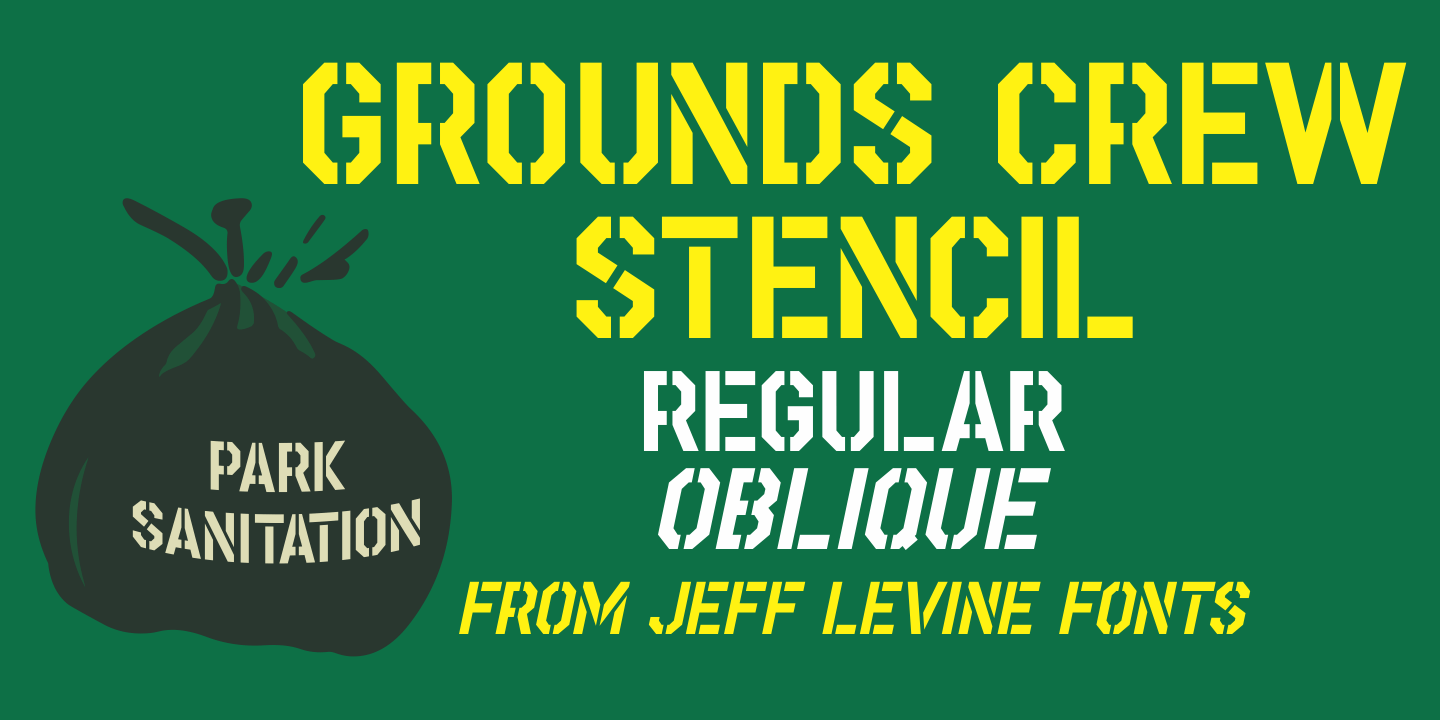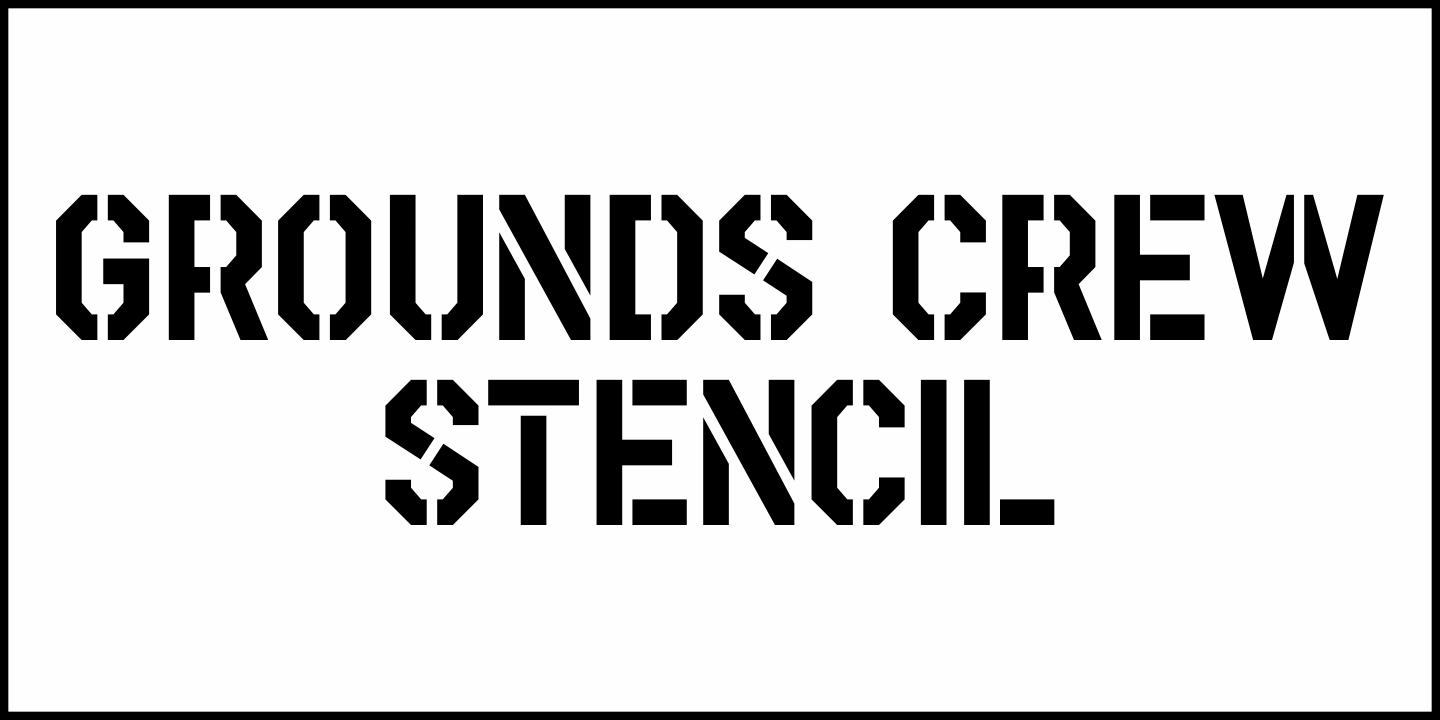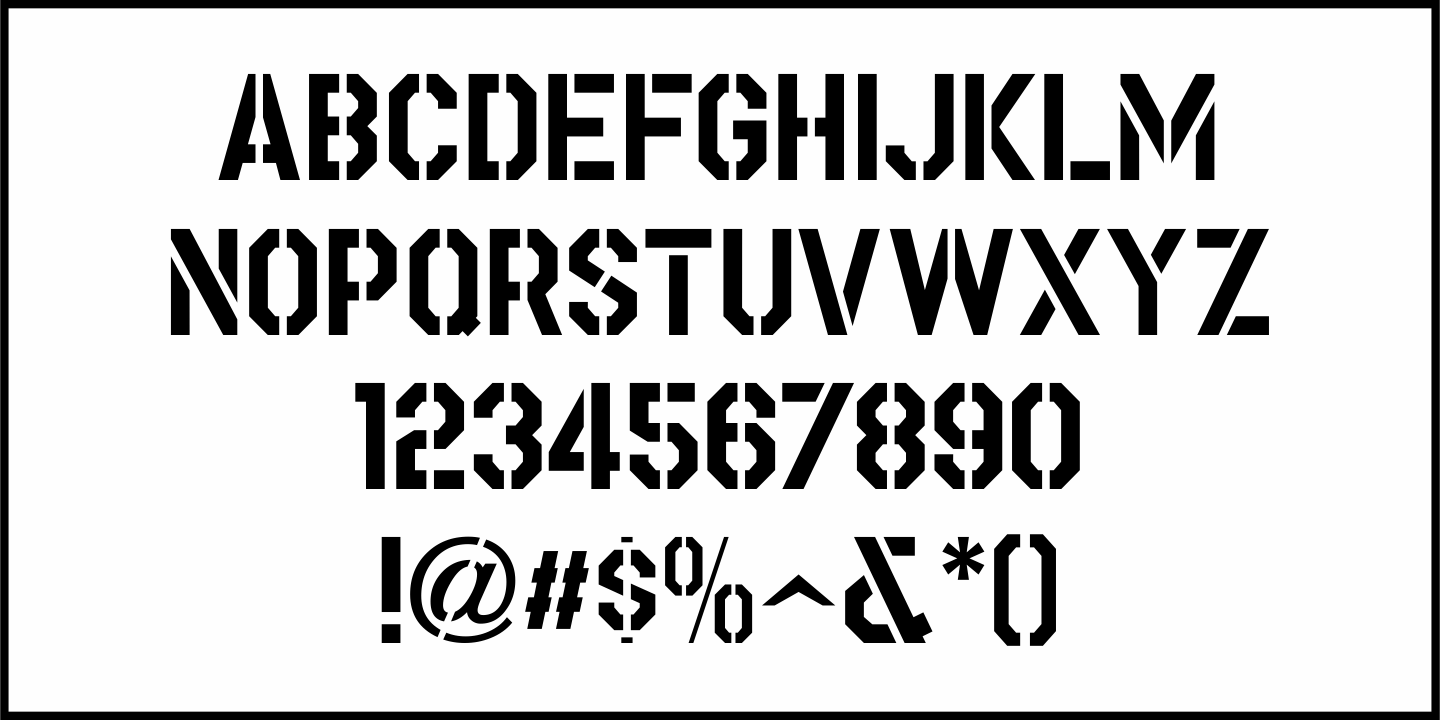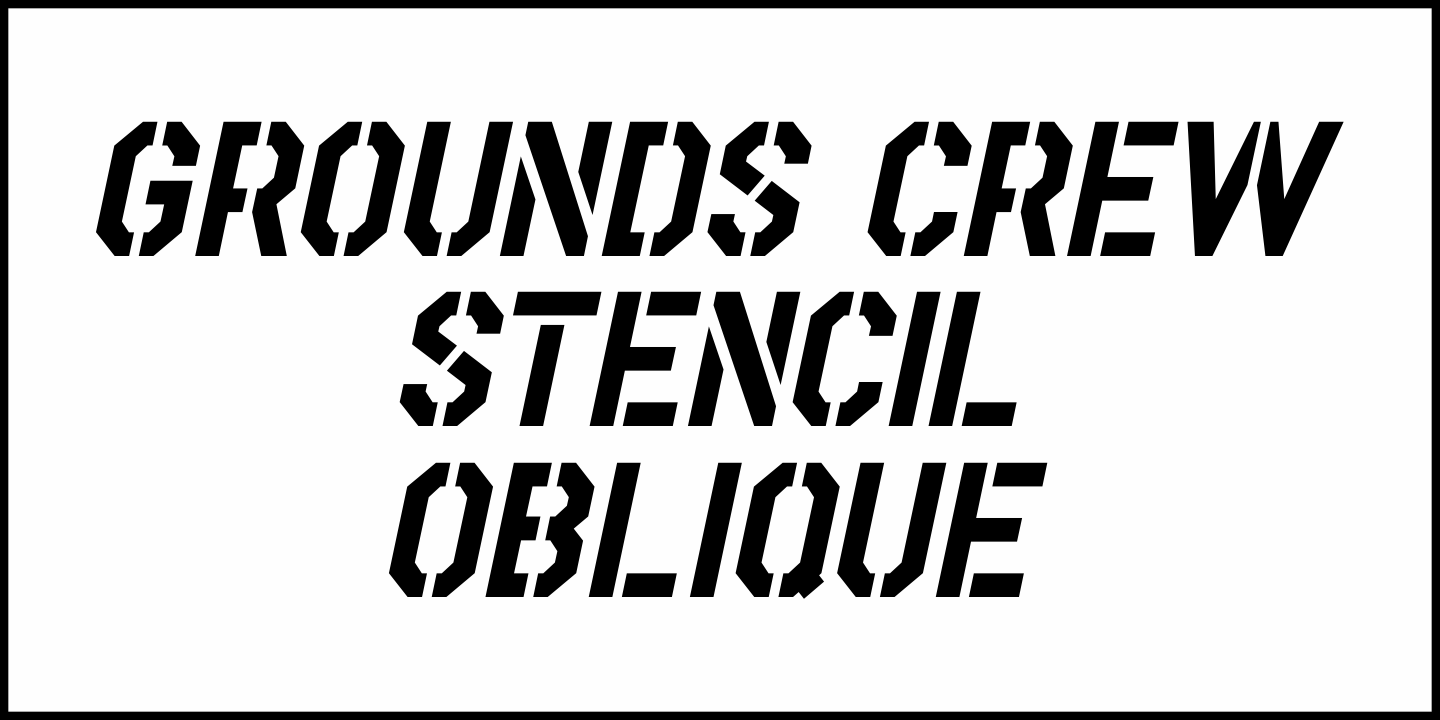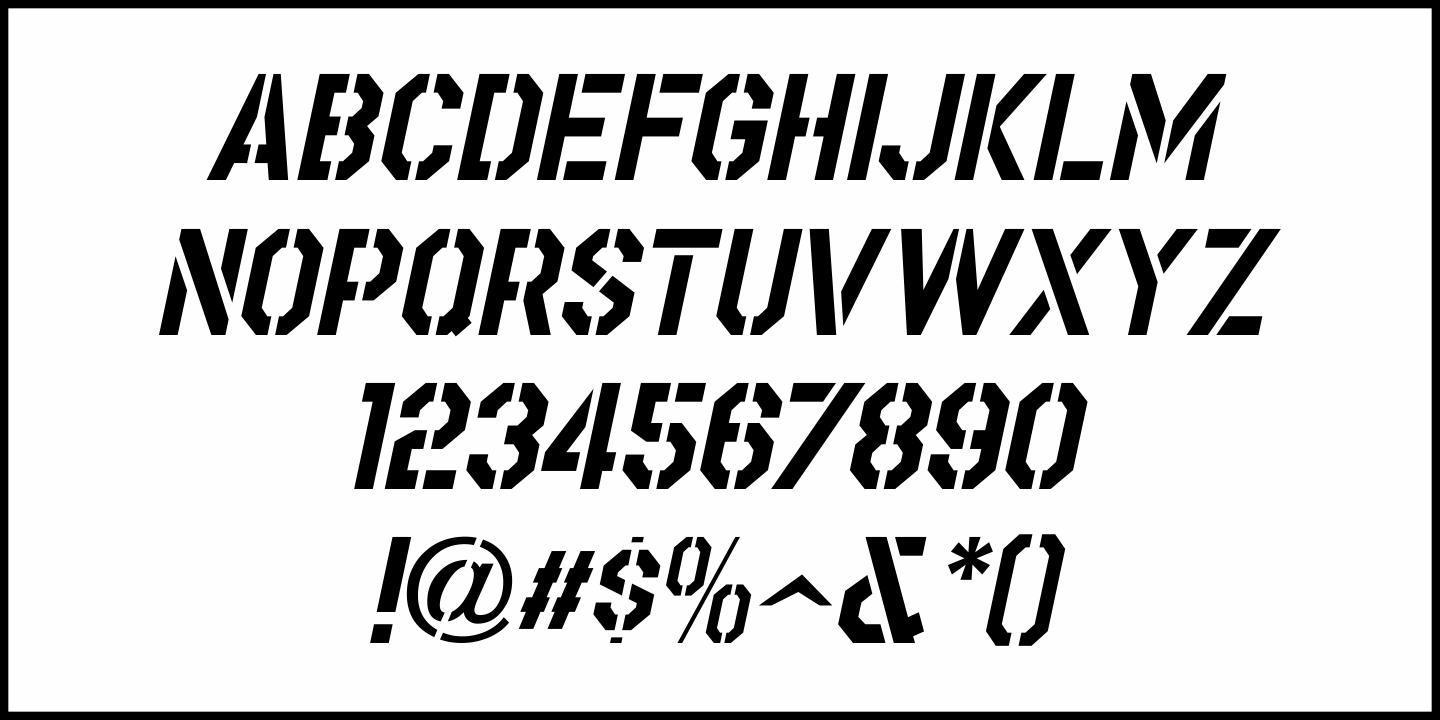
Grounds Crew Stencil
The opening title from the 1943 Abbott and Costello comedy ”It Ain't Hay” shows a park bench with the words “Universal Presents” stenciled on it in a chamfered sans serif style.
This served as the design model for Grounds Crew Stencil JNL, which is available in both regular and oblique versions.